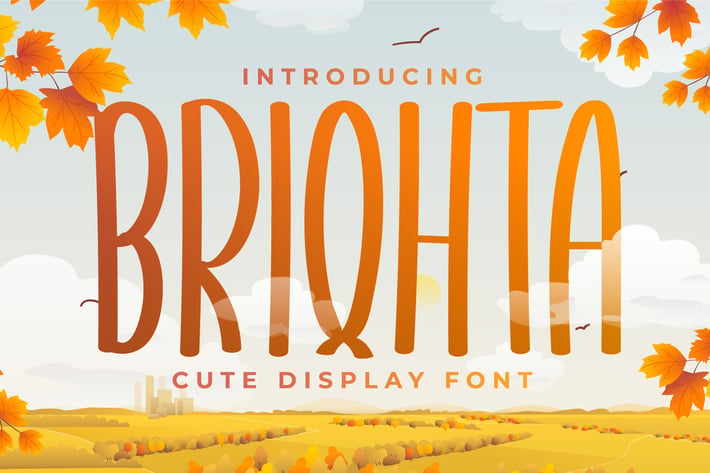
Briqhta - Display Handwriting Font
Introducing Briqhta - Display Handwriting Font
Briqhta is a fun and cute display font that fits perfectly into anything. Its casual charm makes it look very down to earth, easy to read and, in the end, very versatile. Fall in love with its playful style and use it to create beautiful stationary art, eye-catching social media posts, and much more!